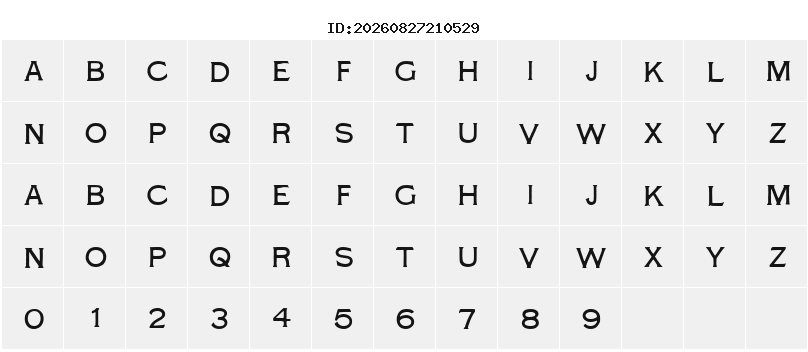
• Font Name: Typo Gothic
About Typo Gothic.ttf
Typo Gothic.ttf is a modern, elegant sans-serif font designed for ultimate readability and visual harmony. Perfect for branding, headlines, web design, and print materials.